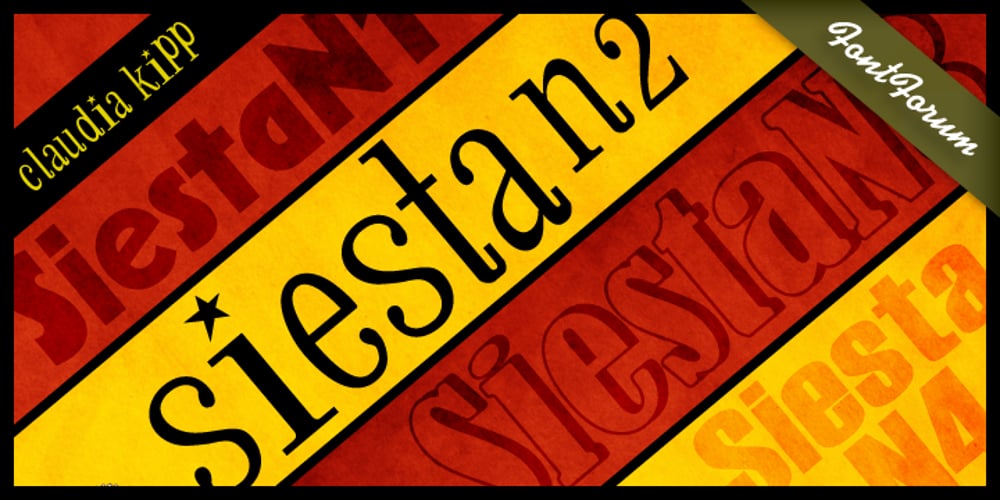
Siesta Font Family was designed by Claudia Kipp and published by URW Type Foundry. Siesta contains 4 styles and family package options. All good things come in threes! FontForum Siesta, last but not least new from Claudia Kipp as well, represents a reflection of a holiday in Spain: bizarre snap shots taken of Spanish day-to-day life, neon ads, bar signs and posters all motivated Claudia Kipp to design this beautiful family of four different styles. She succeeded well in capturing the Mediterranean life for daily use in our colder environment.